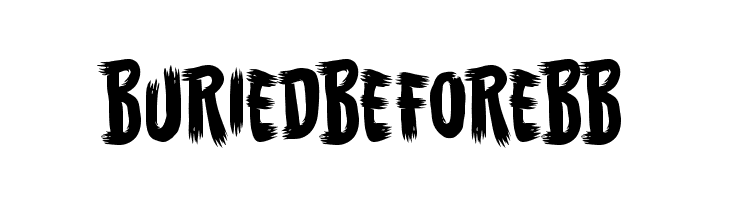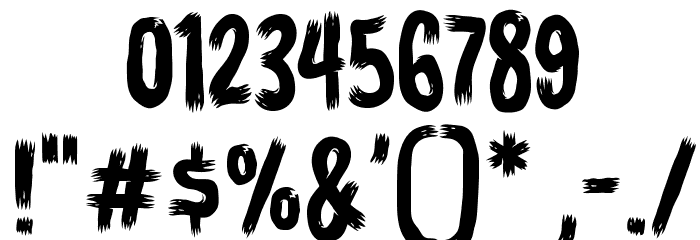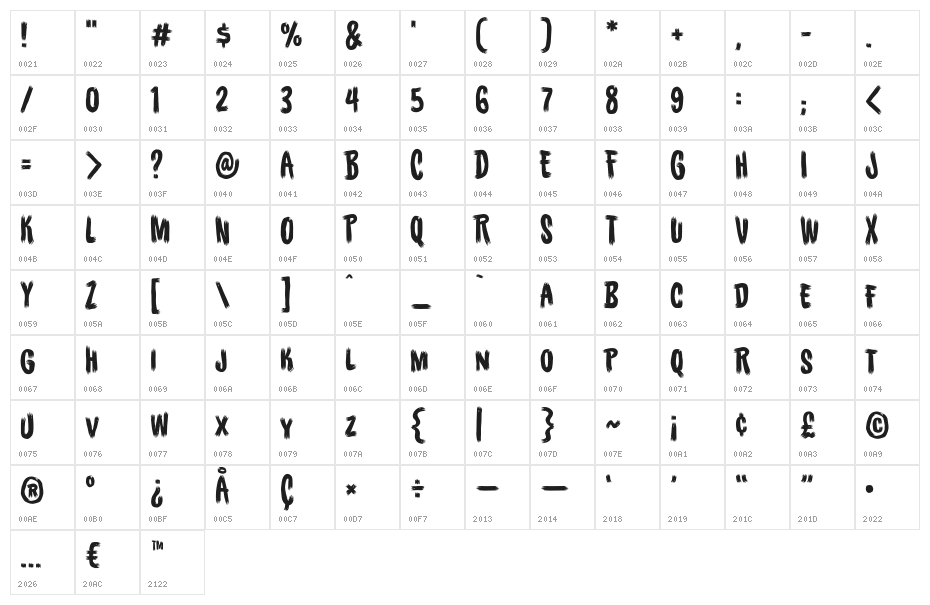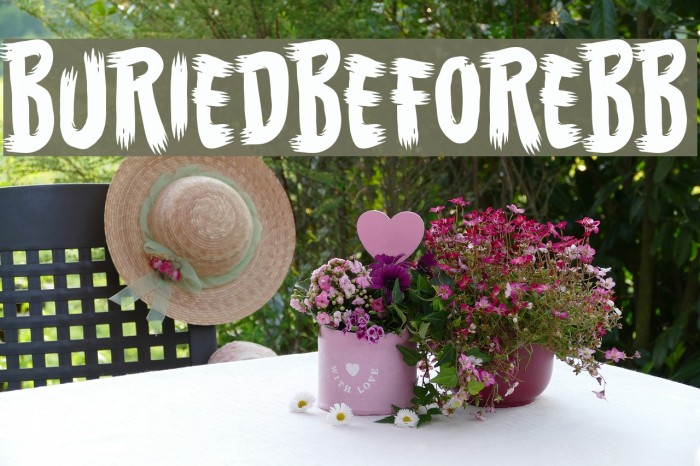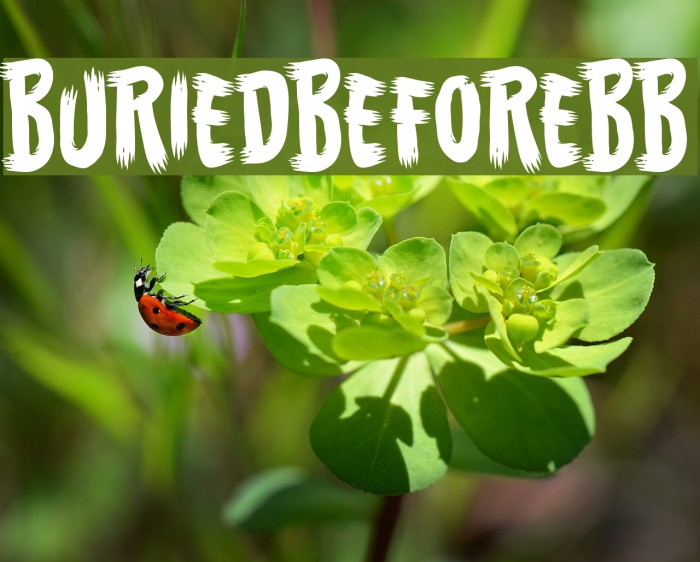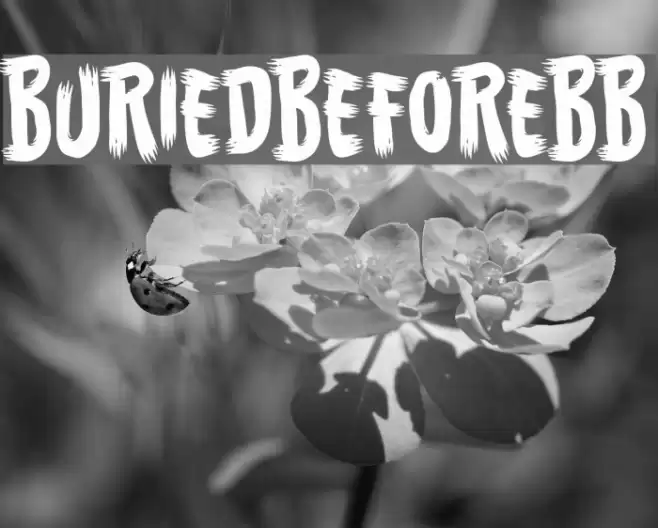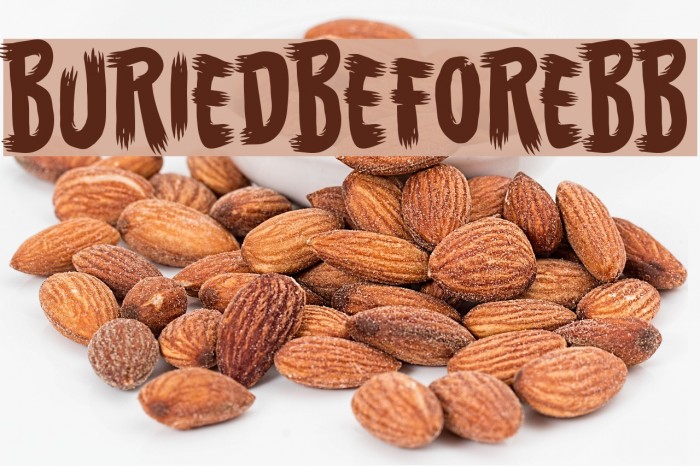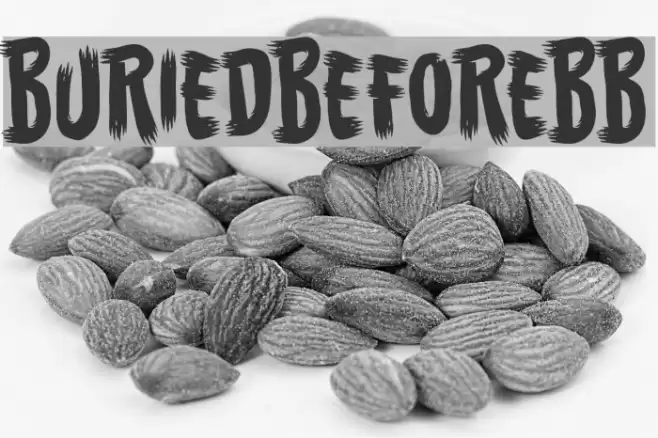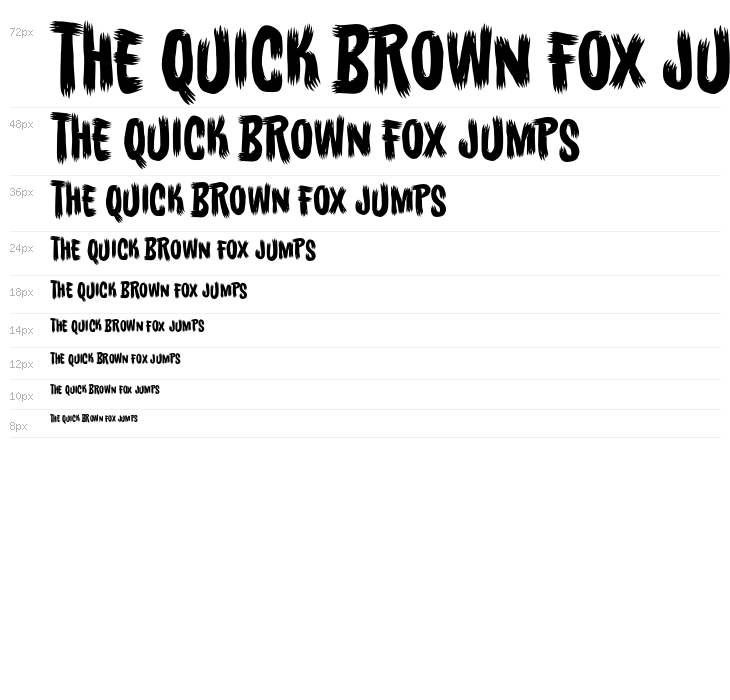
BuriedBeforeBB Font
BuriedBeforeBB Description
This font features a bold and dynamic style with a distressed, brush-like texture. The characters are thick and exhibit a rough, hand-painted appearance, giving them a sense of movement and energy. The uppercase and lowercase letters maintain a consistent style, with exaggerated strokes and uneven edges that add to the font's dramatic flair. Numbers and special characters are equally bold, ensuring a cohesive look across all text elements. The font's unique texture makes it stand out, ideal for projects that require a strong visual impact.